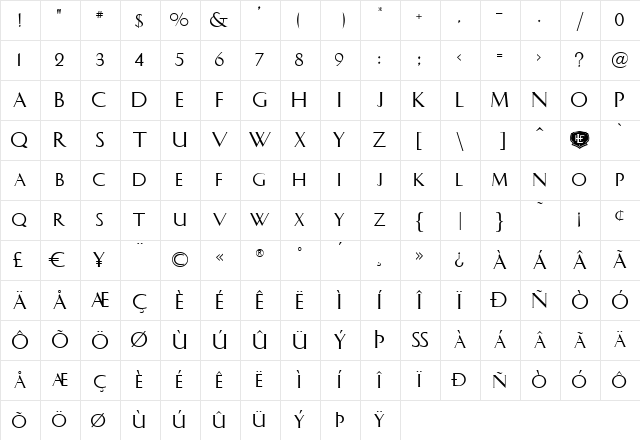
LHF Charlotte Regular
Foundry: Letterhead Fonts
Design Context for LHF Charlotte
LHF Charlotte is a composed and adaptable typeface that performs quietly and consistently across a wide range of design contexts.
Who designed the LHF Charlotte Regular font?